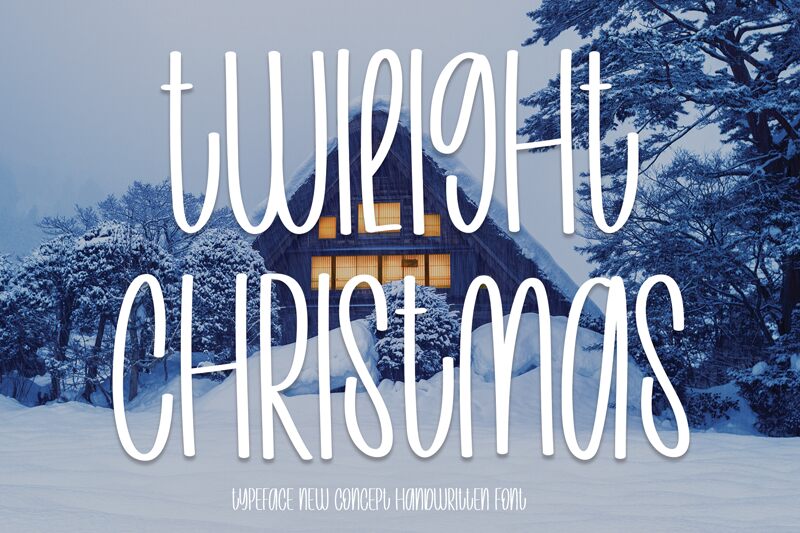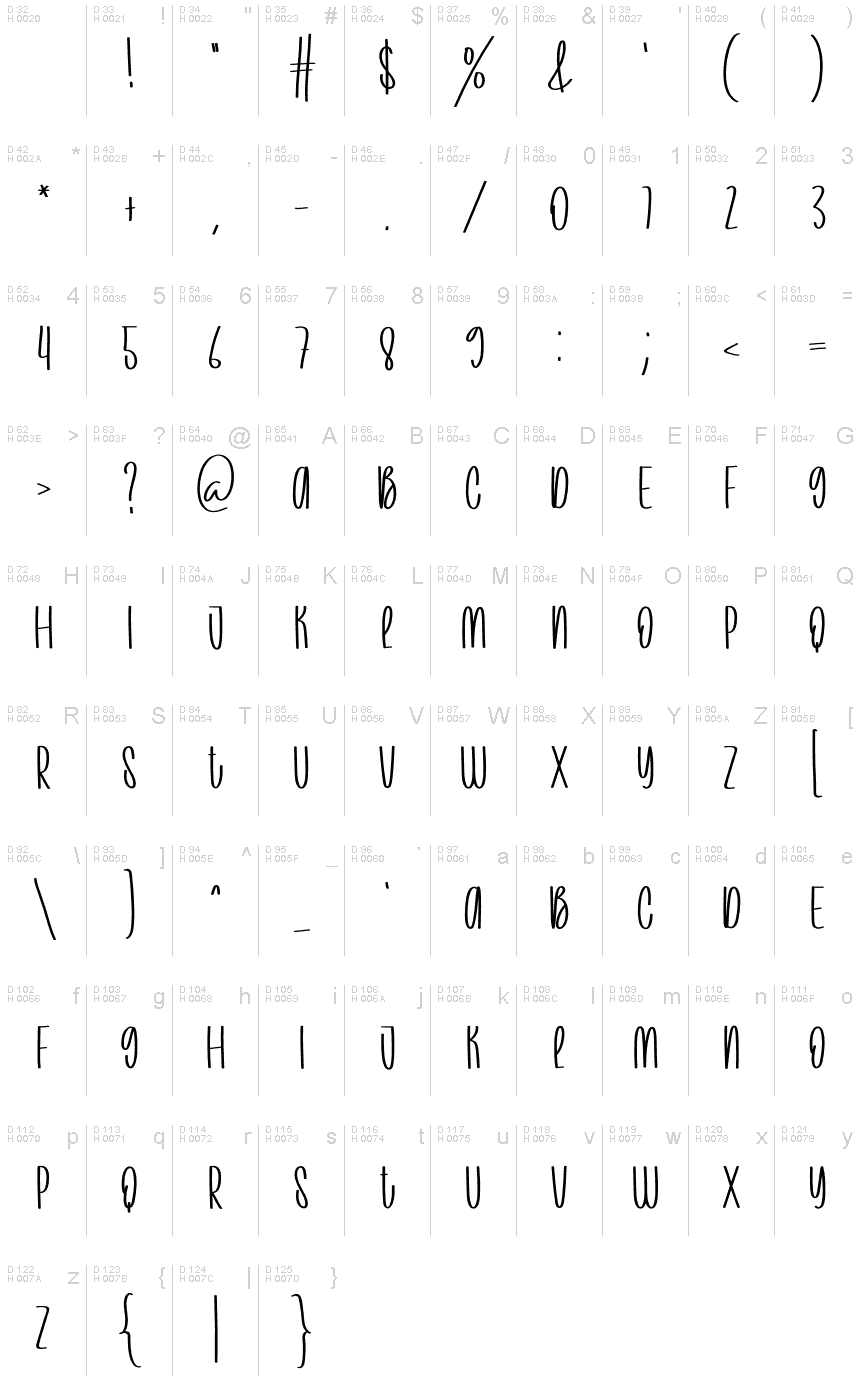
Twilight Christmas
Twilight Christmas, crafted by Scratchones, is a handwritten font that exudes a semi-light charm, perfect for capturing the magic of the holiday season. Its elegant curves and flowing lines bring a personal touch to any project, inviting warmth and festivity through its casual yet sophisticated style. This font's aesthetic appeal lies in its blend of simplicity and whimsy, making it an excellent choice for holiday greetings, event invitations, and themed marketing materials that seek to leave a lasting impression with a handcrafted feel. The semi-light weight of Twilight Christmas maintains readability while providing a delicate finesse to your creative endeavors.
Whether you're decking out your digital space or creating tangible keepsakes, this font is tailored for those who appreciate an artisanal flair paired with the joyous spirit of Christmas.